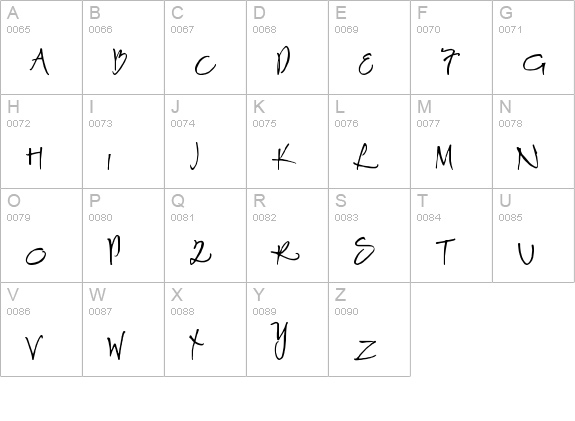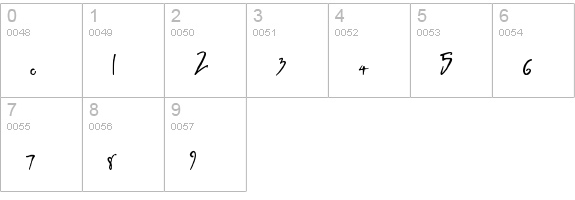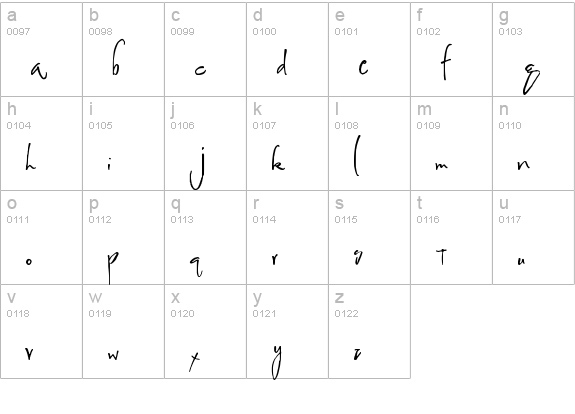
Hyrule Font Details
The Hyrule font is a beautifully crafted typeface that perfectly captures the essence of the mystical world of Hyrule. Its elegant and intricate design is sure to add a touch of fantasy and adventure to any project. Whether you're designing a logo, creating a poster, or working on a digital project, the Hyrule font is the perfect choice to make your text stand out. Best of all, the Hyrule font is available for free download at FontsMarket.com. This means that you can easily access this stunning font and use it in your projects without any cost. Don't miss out on the opportunity to enhance your designs with the enchanting Hyrule font - download it today and let your creativity soar!